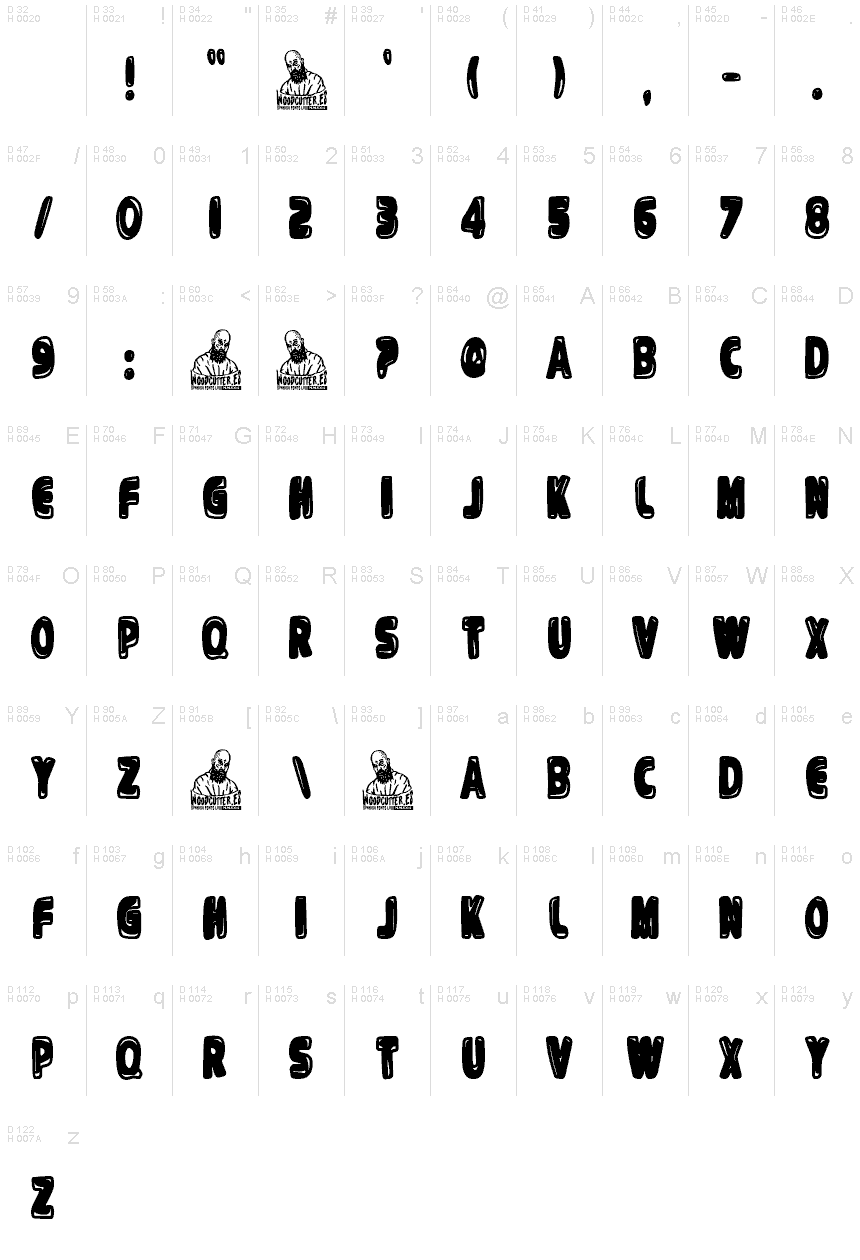
Avenida Goya
Avenida Goya font by Woodcutter is a bold display typeface with a condensed format reminiscent of retro signage. The font's artistic flair and blocky style make it ideal for projects where bold presence is needed. Serif-free, the character set is composed of capital letters (all-caps) and numbers.
Flamboyant textual designs, logotypes, advertising elements, packaging design labels, posters, billboards and more will enjoy this free stylish typeface.